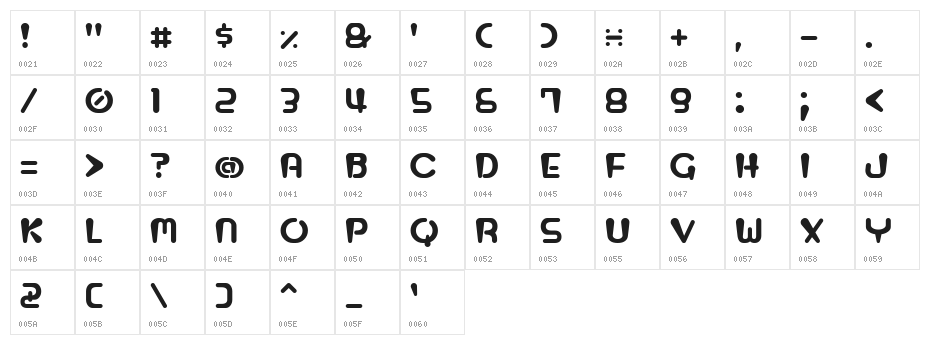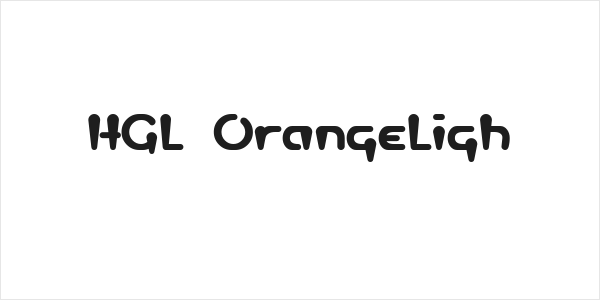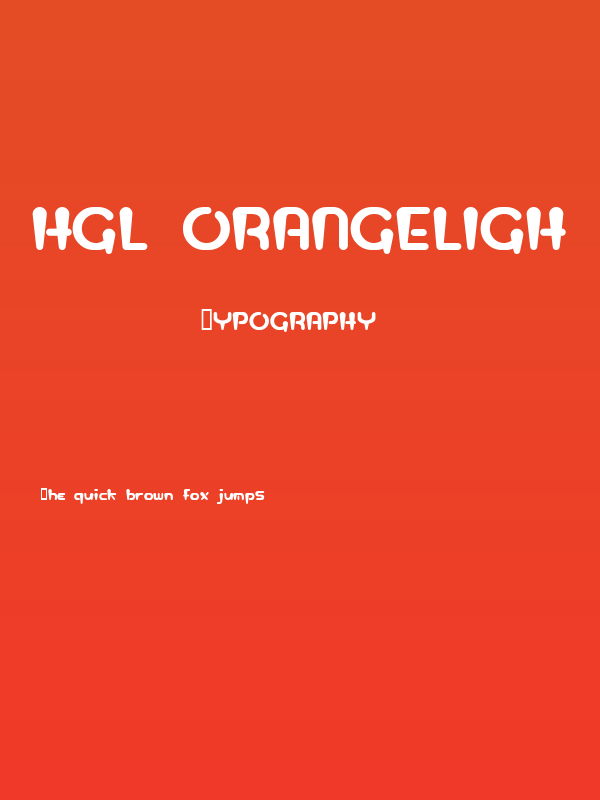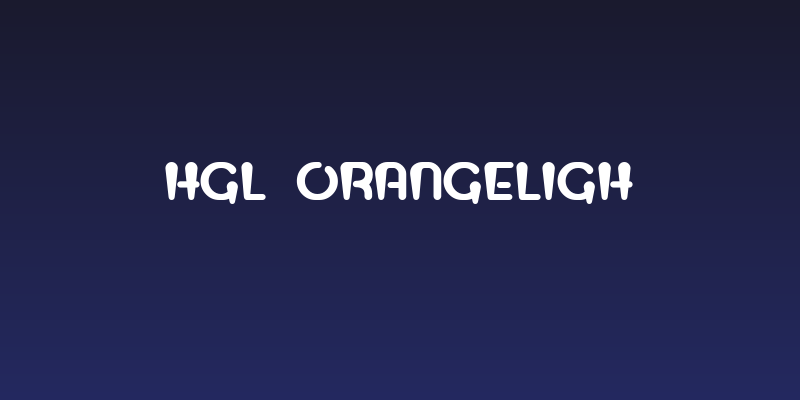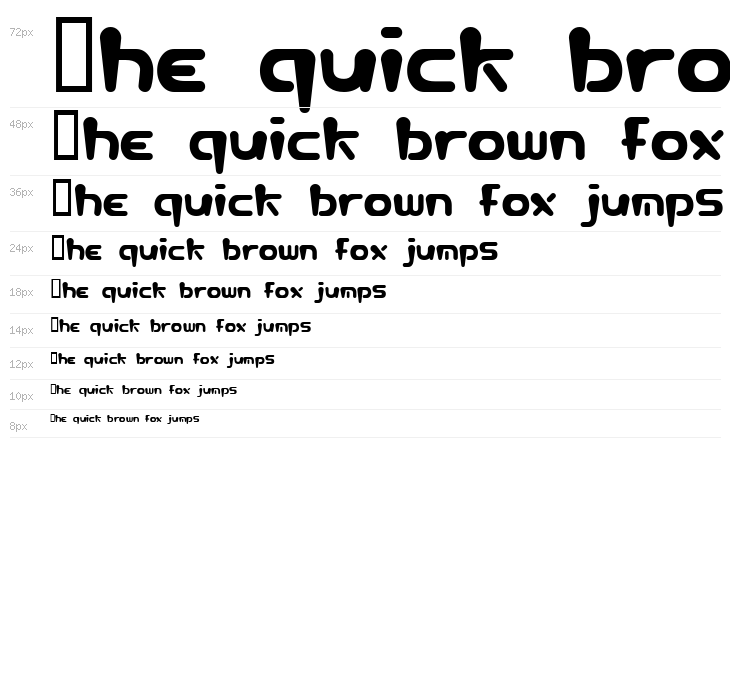
HGL OrangeLigh Font
HGL OrangeLigh Description
This font features a playful and rounded design, with each character exhibiting a bold and smooth appearance. The letters are uniformly thick, contributing to a cohesive and friendly aesthetic. The curves are pronounced, giving the font a soft and approachable feel. The numerals and special characters maintain this rounded style, ensuring consistency across all glyphs. This font's unique style makes it stand out, while still being legible and versatile for various applications.